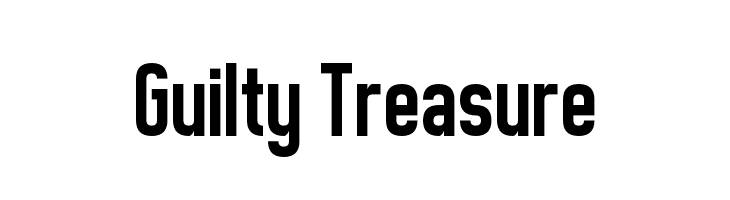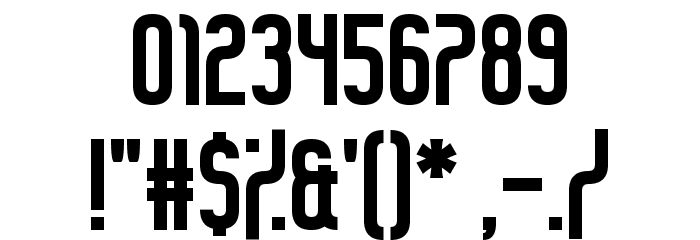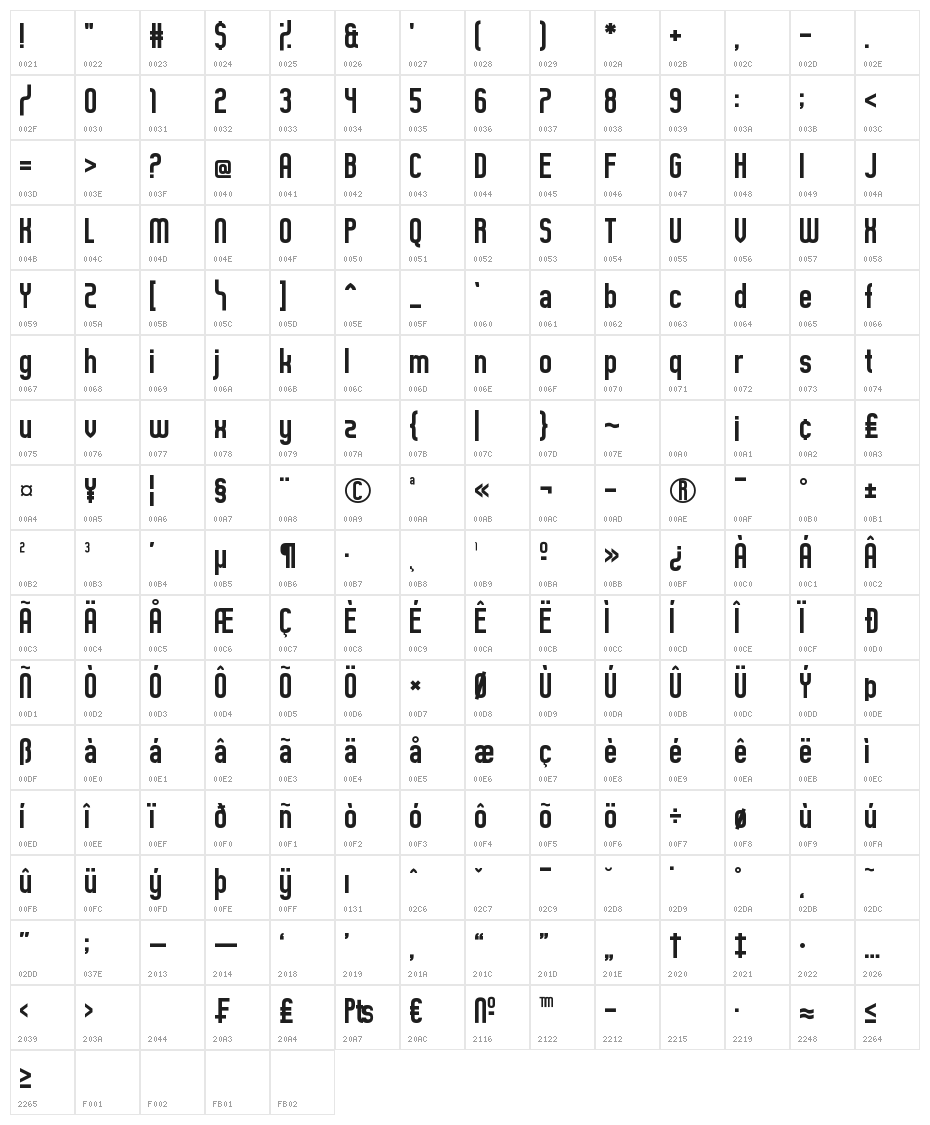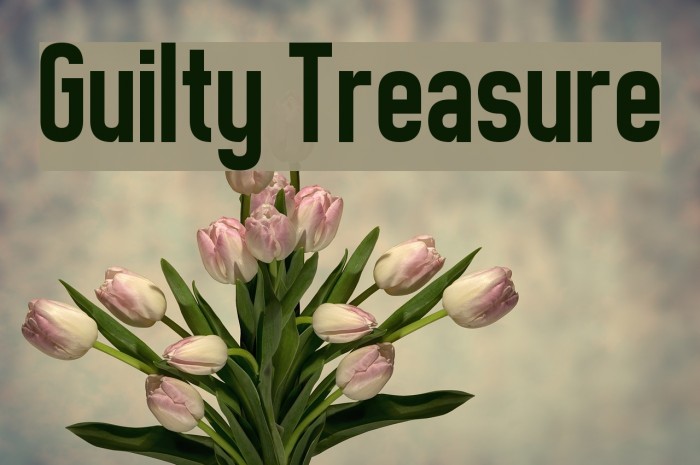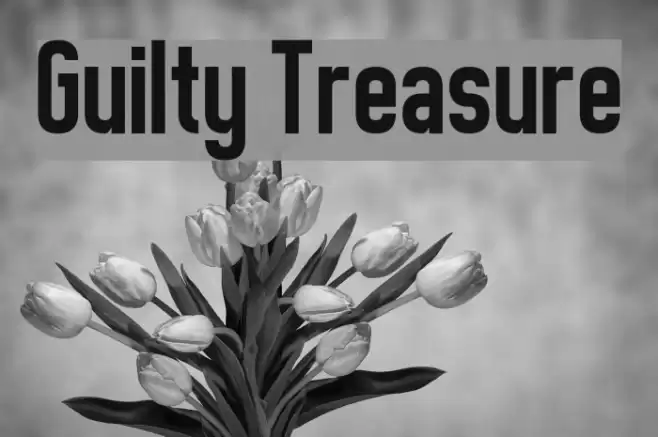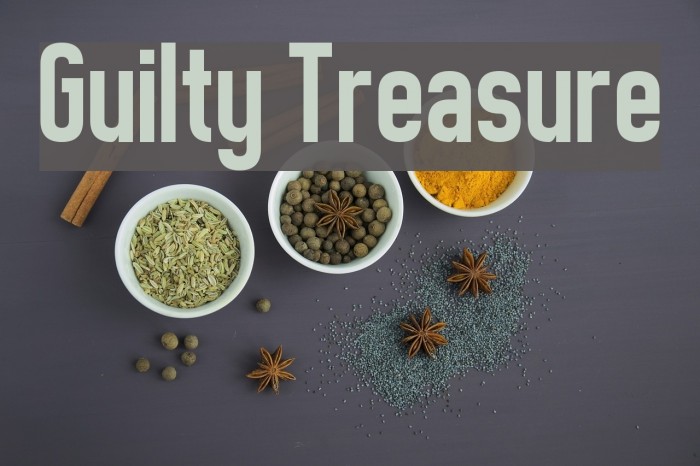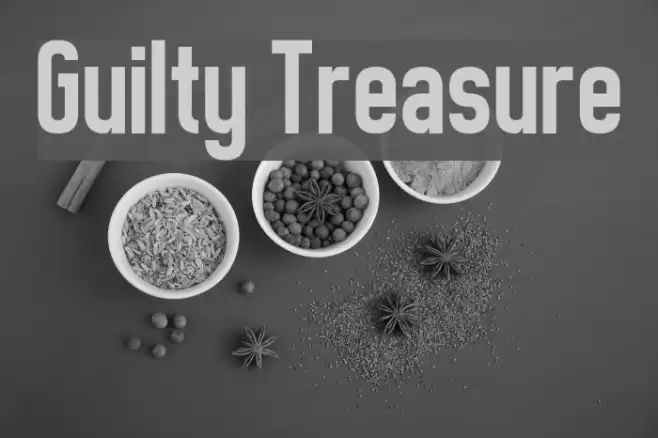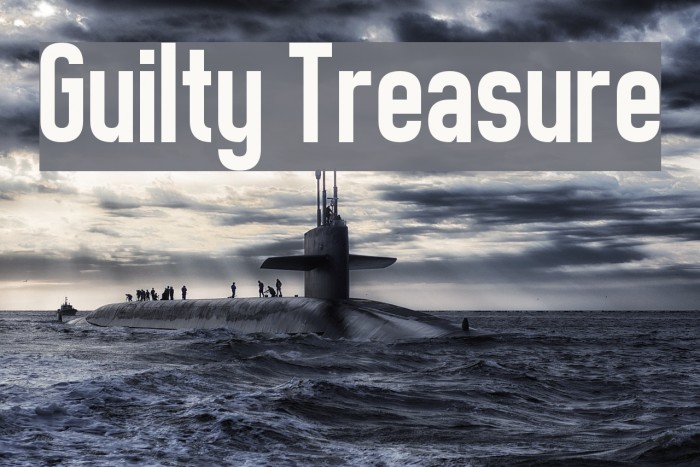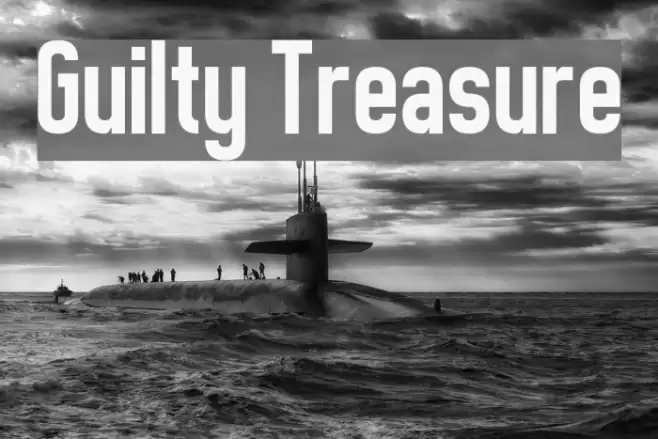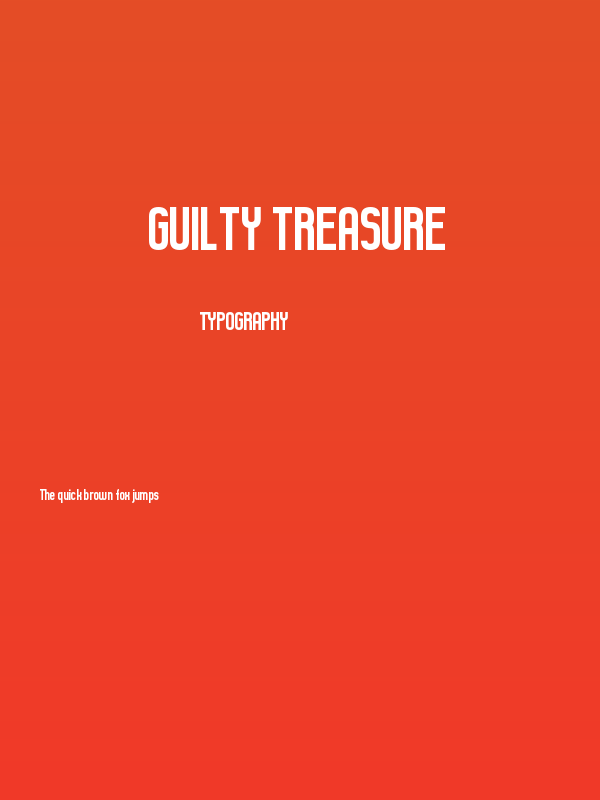
Guilty Treasure Font
This font features a bold and modern design with a unique geometric structure. The characters are tall and narrow, giving it a condensed appearance. The uppercase letters have a uniform height, while the lowercase letters maintain a consistent style with rounded edges and smooth curves. The numerals are distinct and easy to read, complementing the overall aesthetic. Special characters are designed to match the boldness and style of the alphabet, making this font versatile for various applications. Its clean lines and contemporary feel make it suitable for modern design projects.
| Proposed Projects | Ideal for branding, advertising, posters, and digital media where a modern and bold statement is needed. |